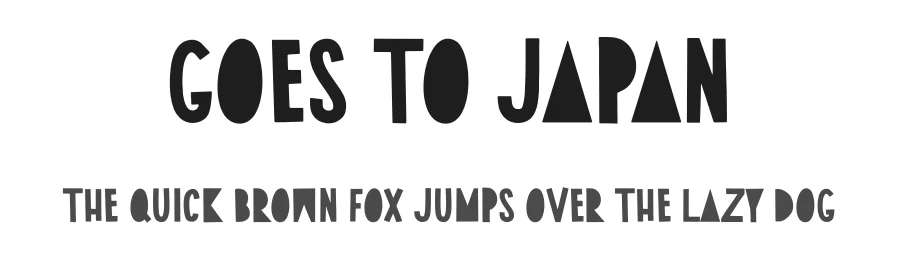
About Antibalon Font
Antibalon is a decorative font designed by Adien Gunarta. It includes 61 glyphs, a regular weight, OTF (CFF) format, and 89 languages. Antibalon is free to download; check the license details on this page before commercial use. Decorative fonts like Antibalon work best for logos, posters, packaging, and standout headlines.
Antibalon Font is a decorative font that shines as a display or heading face. Pair it with a clean sans-serif or serif font for body text β the contrast creates a clear hierarchy while the two styles stay balanced and easy to read.